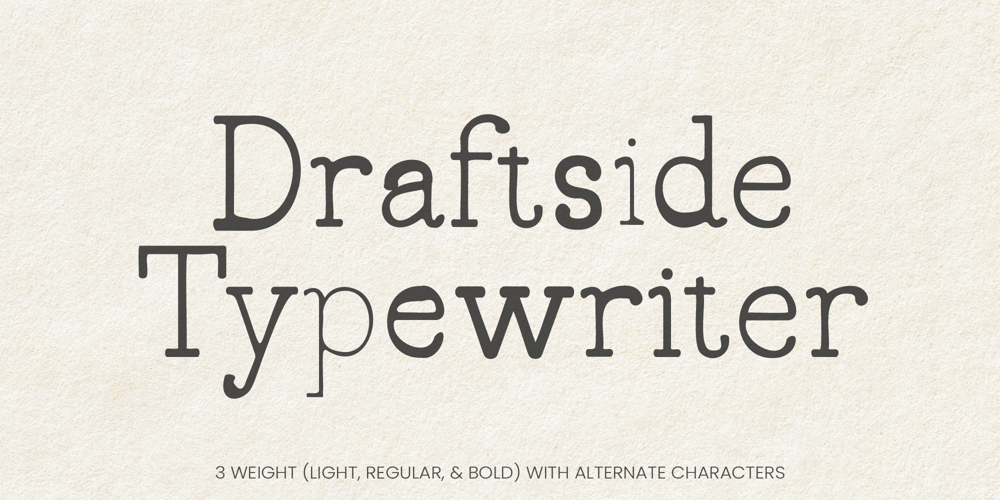
Draftside Font Family was designed by Randi Irvan and published by Rvandtype. Draftside contains 3 styles and family package options. Introducing Draftside, a captivating typewriter-inspired font meticulously crafted with a touch of vintage allure. This font seamlessly merges elegance with a cool, timeless aesthetic, rendering it an impeccable choice for a myriad of design applications. Draftside’s distinctive charm elevates logos, giving them a unique and sophisticated edge. Whether you’re working on branding projects, invitations, stationery, or designing for weddings, this font lends a classic yet contemporary vibe to your creations.